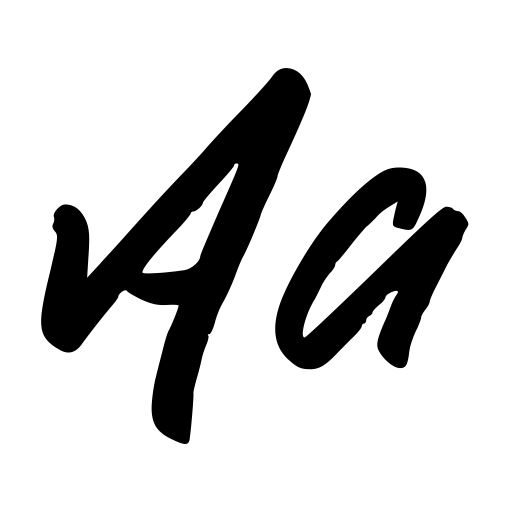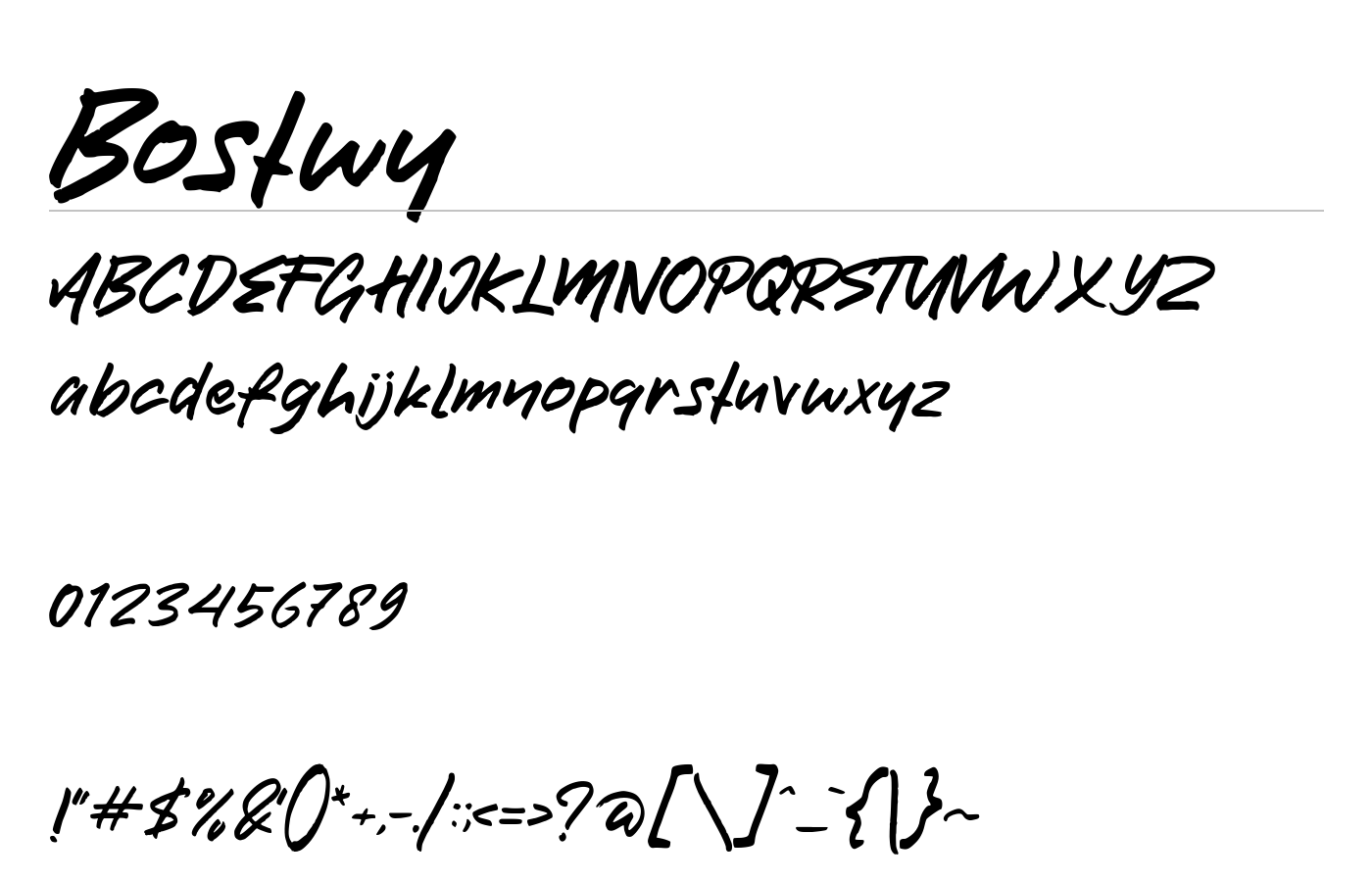
Bostwy is an energetic, handwritten script font that conveys a casual and expressive feel with its bold, slightly slanted strokes and loose, organic shapes. Its moderate contrast and fluid letterforms make it perfect for creative projects, branding, and headlines that aim to capture a dynamic and personal touch. This font works well in fashion, lifestyle, and informal contexts where a lively and approachable style is desired.
Bostwy Font
About Bostwy Font